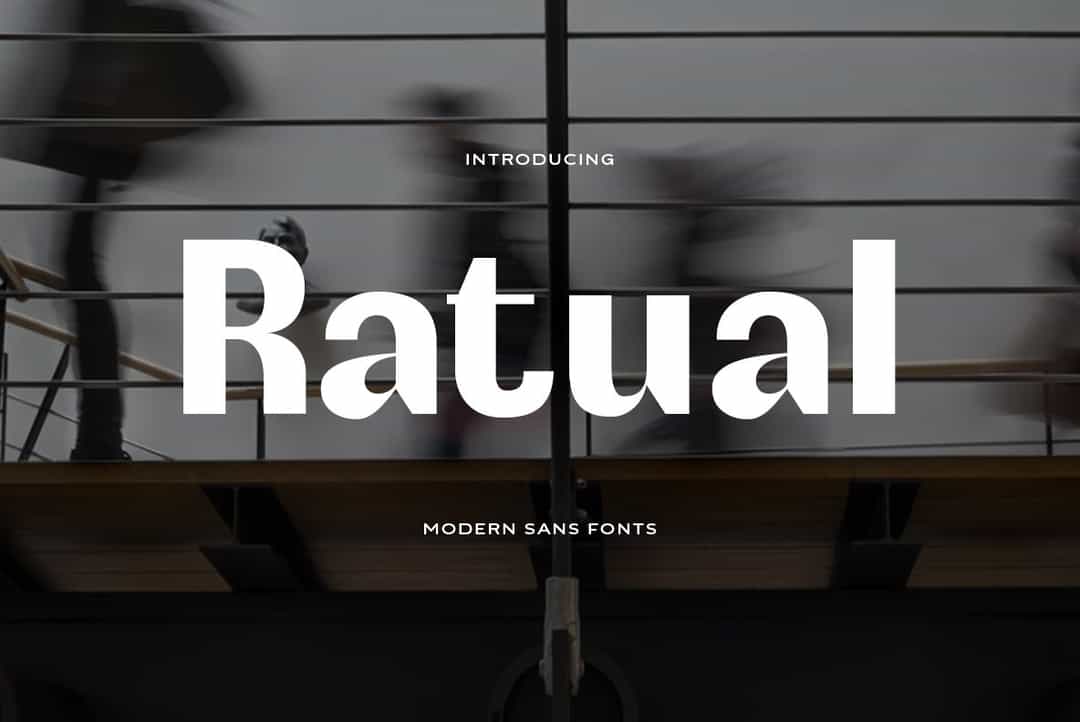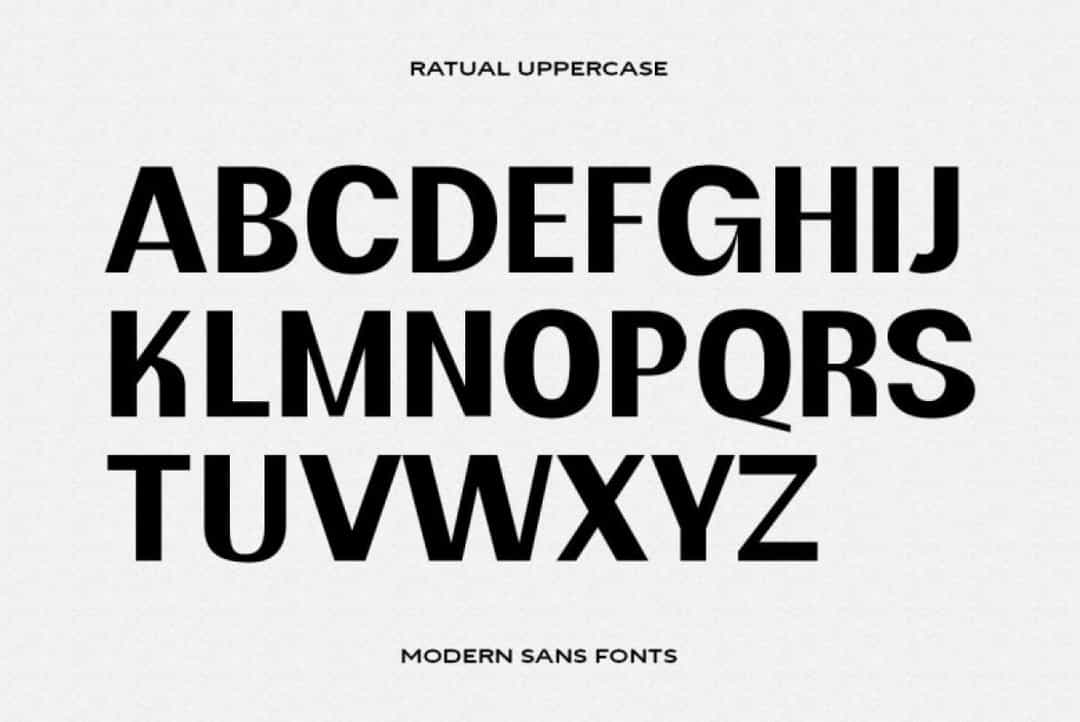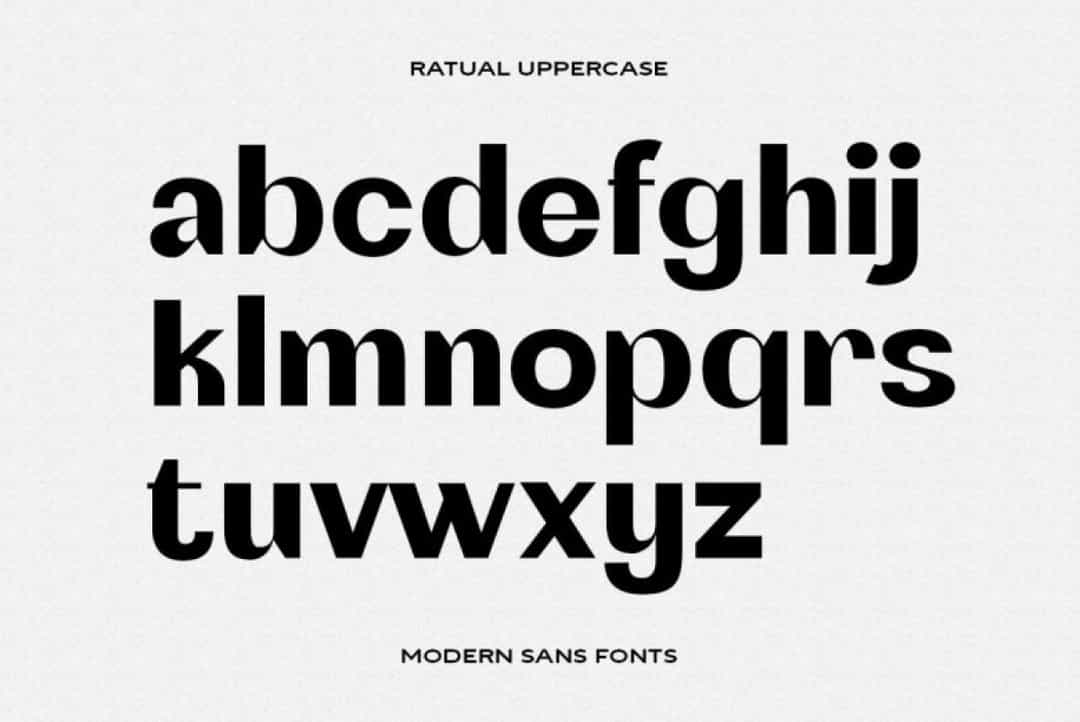
Discover Ratual Font, part of the Sans Serif collection—a versatile and unique font perfect for adding a personal touch to your projects. Download it for free and enjoy crafting designs with style, from invitations to social media posts. This font is available exclusively for personal use, giving you the freedom to create without limits. Unlock your creativity with Ratual Font today!
Ratual is a contemporary sans-serif font suitable for use in various designs, such as branding, logos and Editorials. Boasting sleek yet minimal features that give this font its modern and professional aesthetic, Ratual will enhance any project with modern elegance and professionalism.